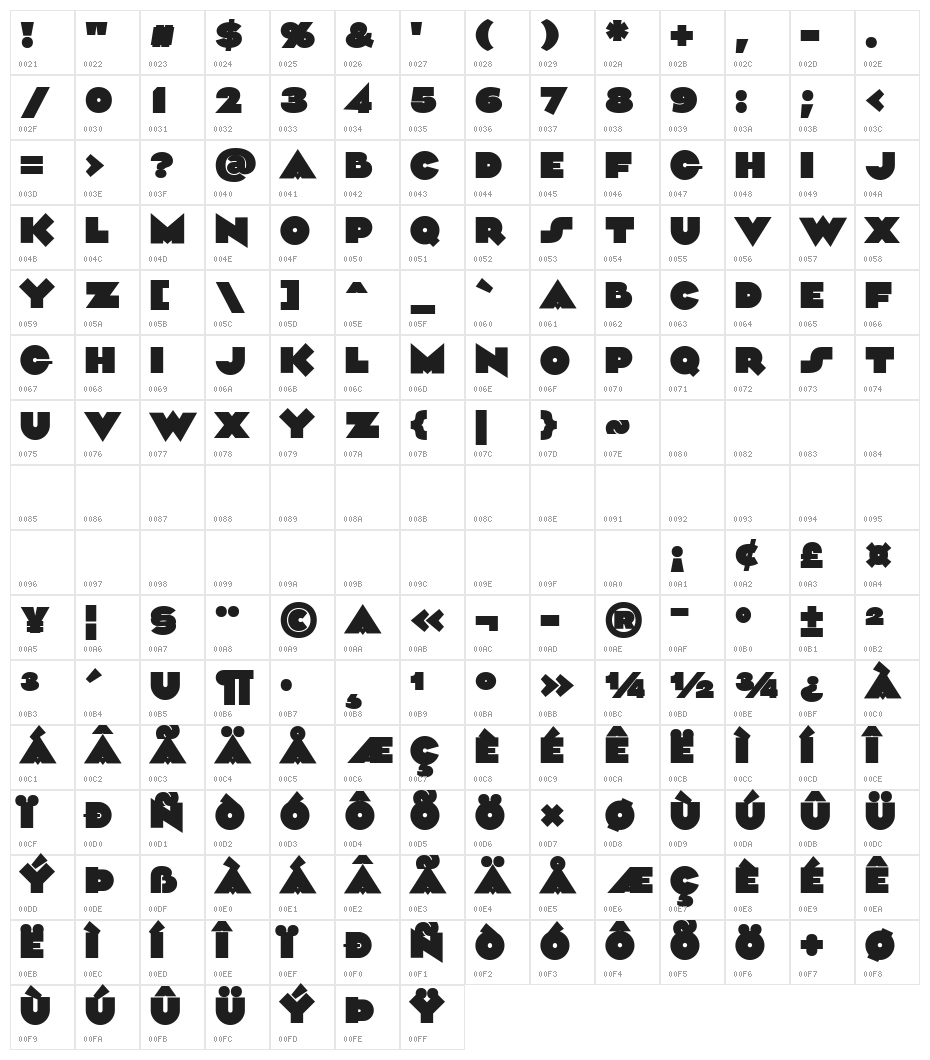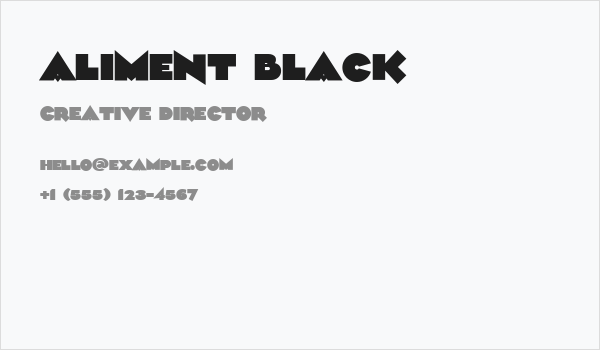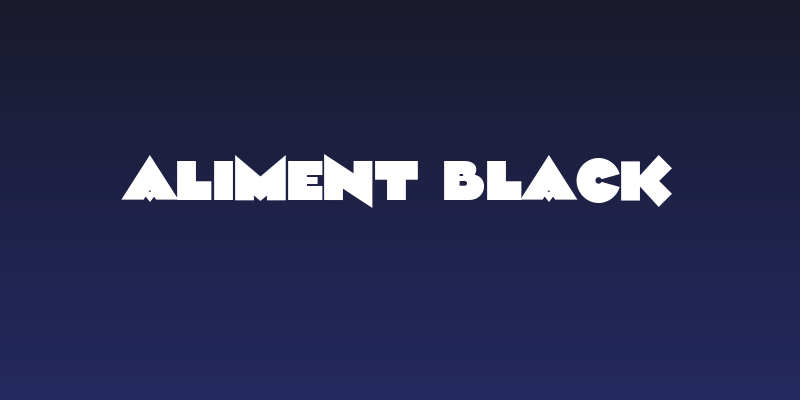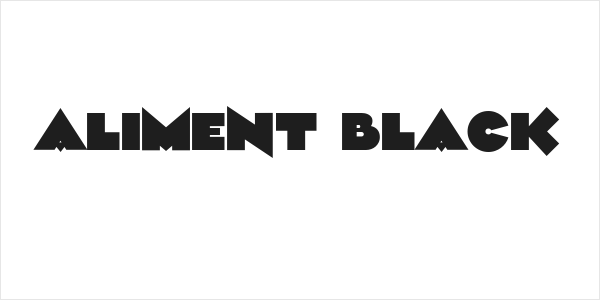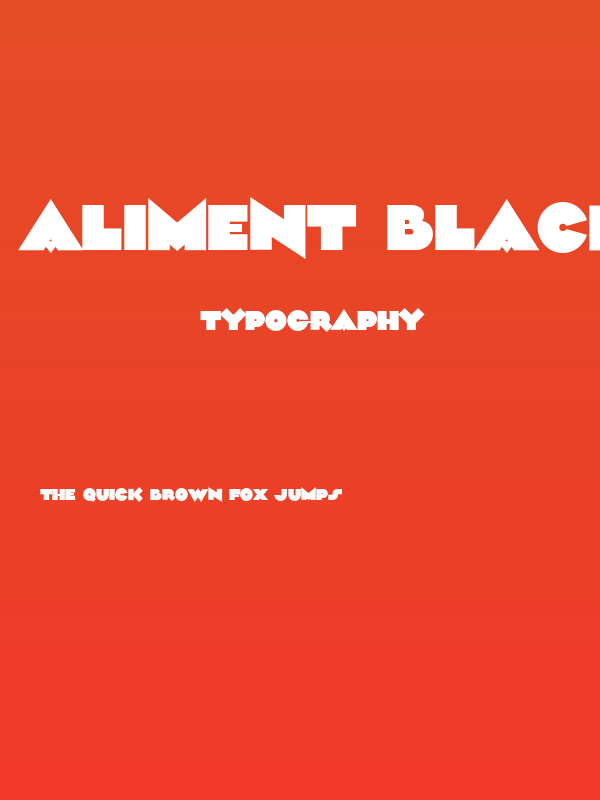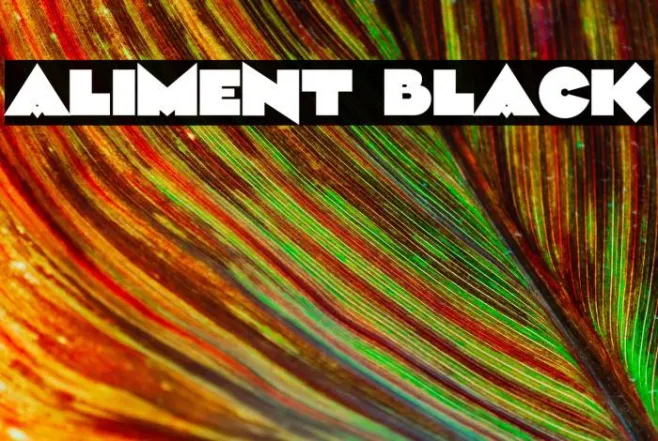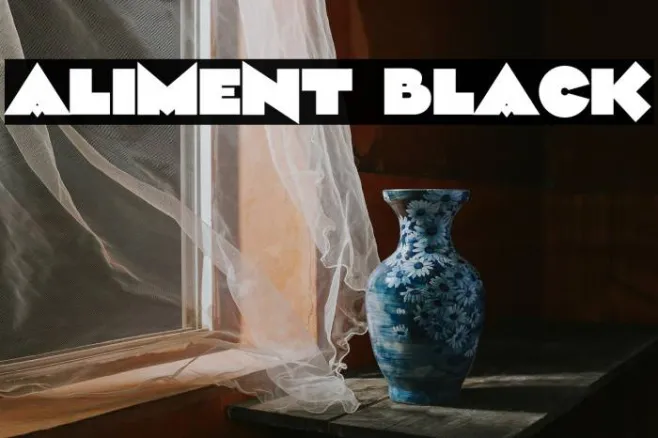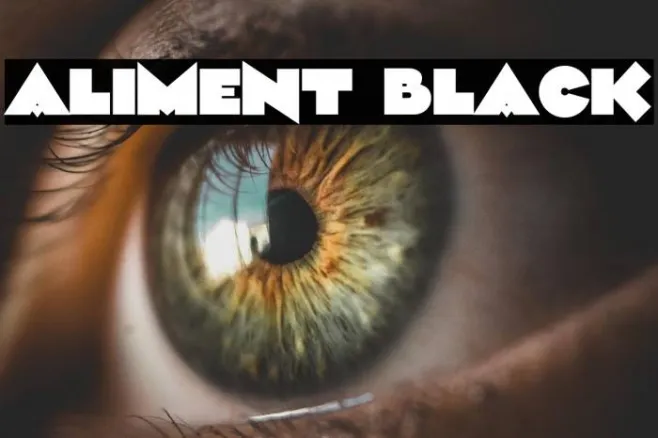
Aliment Black Font
Aliment Black Description
This bold and striking font features a geometric and angular design, characterized by sharp edges and a strong presence. The uppercase letters are particularly prominent, with a unique style that incorporates triangular and circular elements, creating a dynamic and modern appearance. The numbers and special characters maintain this bold aesthetic, ensuring consistency across all glyphs. The font's design is highly decorative, making it suitable for attention-grabbing headlines and logos. Its distinct style is both contemporary and artistic, offering a fresh take on traditional bold fonts.
| Proposed Projects | Ideal for branding, posters, headlines, and any project requiring a bold, modern statement. |